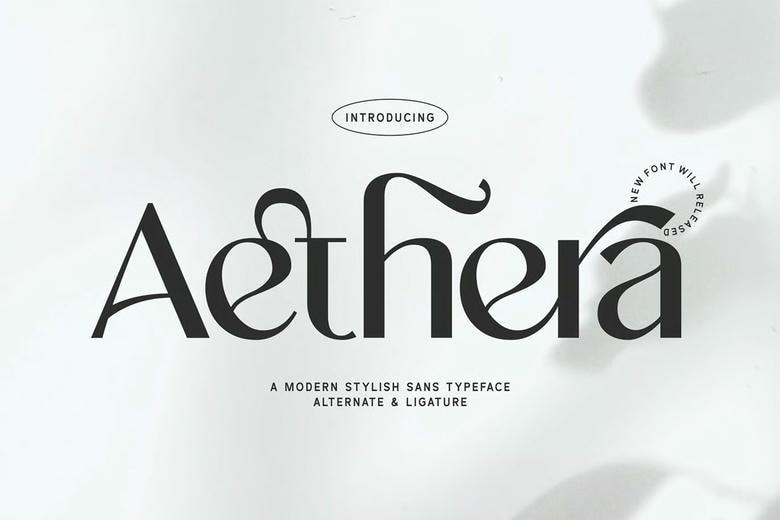
Aethera Font
Aethera Font is a modern serif typeface that blends elegance with a fresh, contemporary style. Its refined contrast and smooth curves, along with unique letterforms and expressive alternatives, bring a sophisticated look to any design.
Aethera stands out for its elegant details, such as subtle notches, smooth endings, and thoughtfully crafted ligatures. These features give it a luxurious feel. Its mix of classic serif shapes and modern style makes Aethera a great choice for a wide range of design projects.
Aethera is a great choice for branding, editorial layouts, logos, fashion labels, invitations, and luxury packaging. It has a classic yet modern look. With support for multiple languages and advanced OpenType features, designers can easily create unique typography.